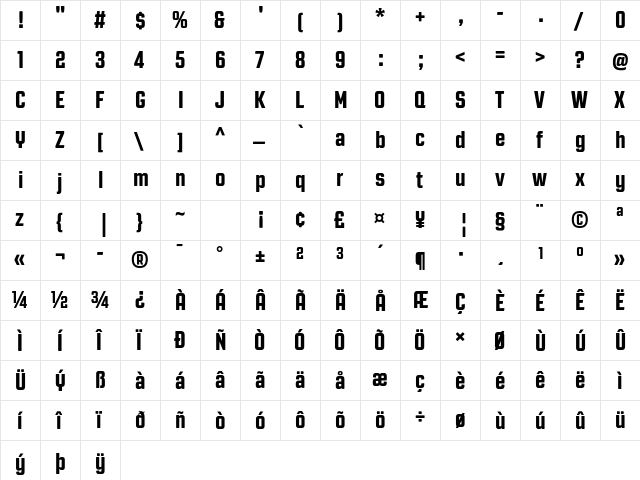
Revolution Gothic Regular
| Foundry | Ryoichi Tsunekawa |
| Designer | Ryoichi Tsunekawa |
Design Context for Revolution Gothic Typeface
Revolution Gothic has the quiet confidence of well-executed sans-serif typography: versatile, unobtrusive, and dependable at any size.
Font Pairing: Works well alongside a characterful serif or display font that can carry the expressive load while Revolution Gothic handles the functional copy.
Pro Tip: Use Revolution Gothic for UI labels, navigation, and short-form body copy where clean legibility is the priority.